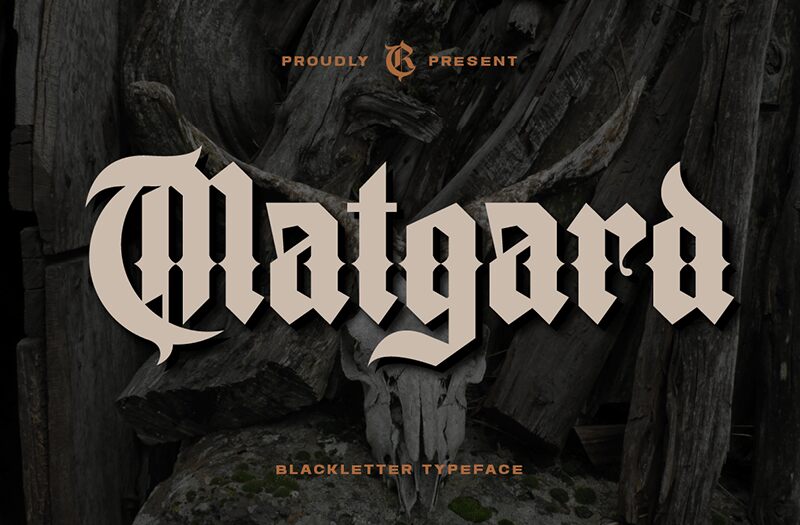
Matgard emerges as a bold statement in the realm of typography, meticulously crafted by Ronny Studio. This modern gothic typeface boasts a condensed and bold weight that commands attention while its high-contrast blackletter design injects a contemporary edge into any creative endeavor. With alternative characters and multi-language support, Matgard is not just a font but an arsenal for designers aiming to infuse their work with character and distinction.
Whether it's creating arresting titles, designing impactful flyers, or adding sophistication to greeting cards and product packaging-Matgard's versatility shines. Its unique flair makes it perfectly suited for book covers that need to stand out on shelves, printed quotes that resonate with viewers, logotypes that define brands, clothing designs waiting to trendset, or album covers that encapsulate music at first glance. Matgard is your go-to typeface for projects that demand presence and style.